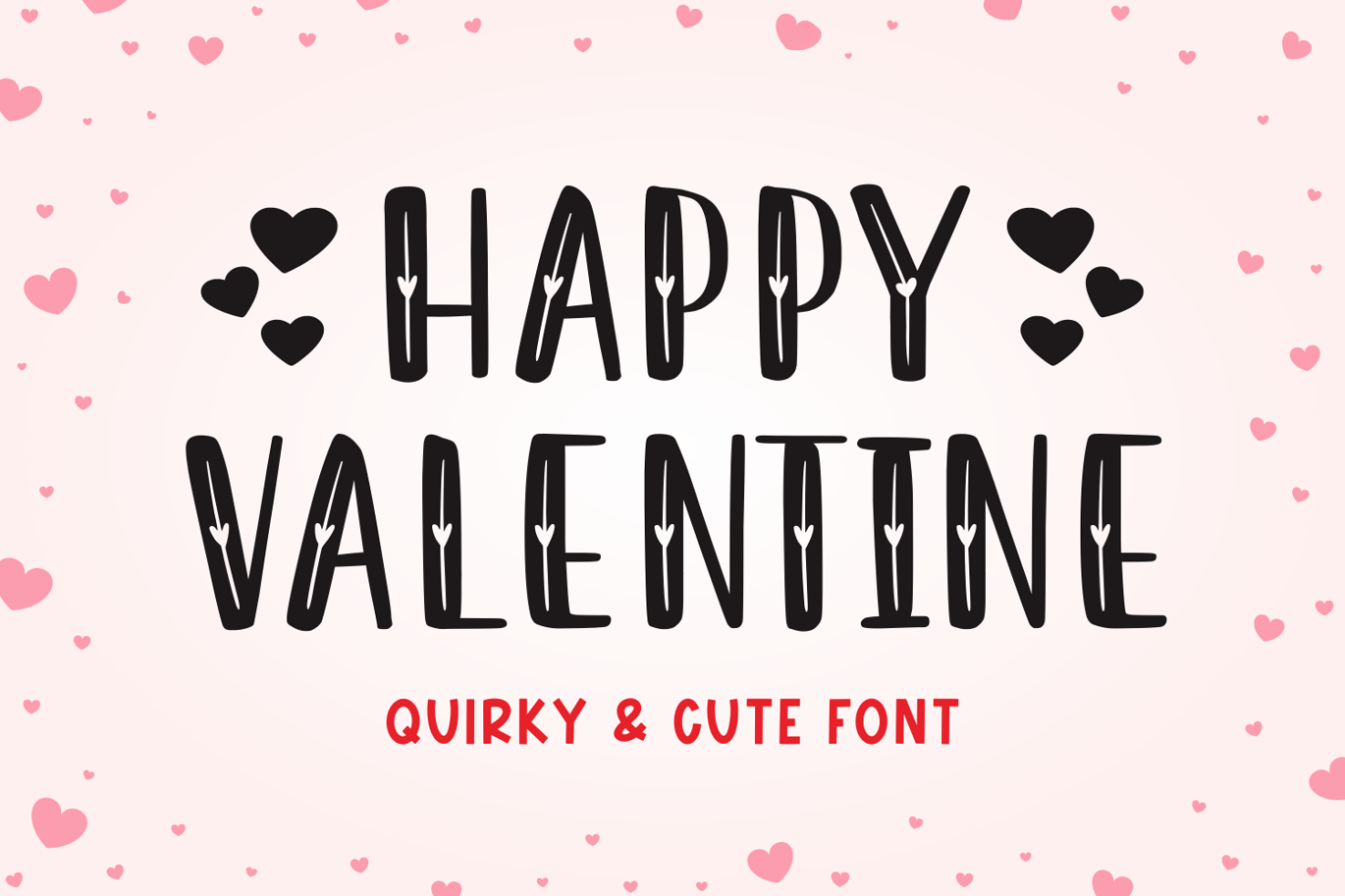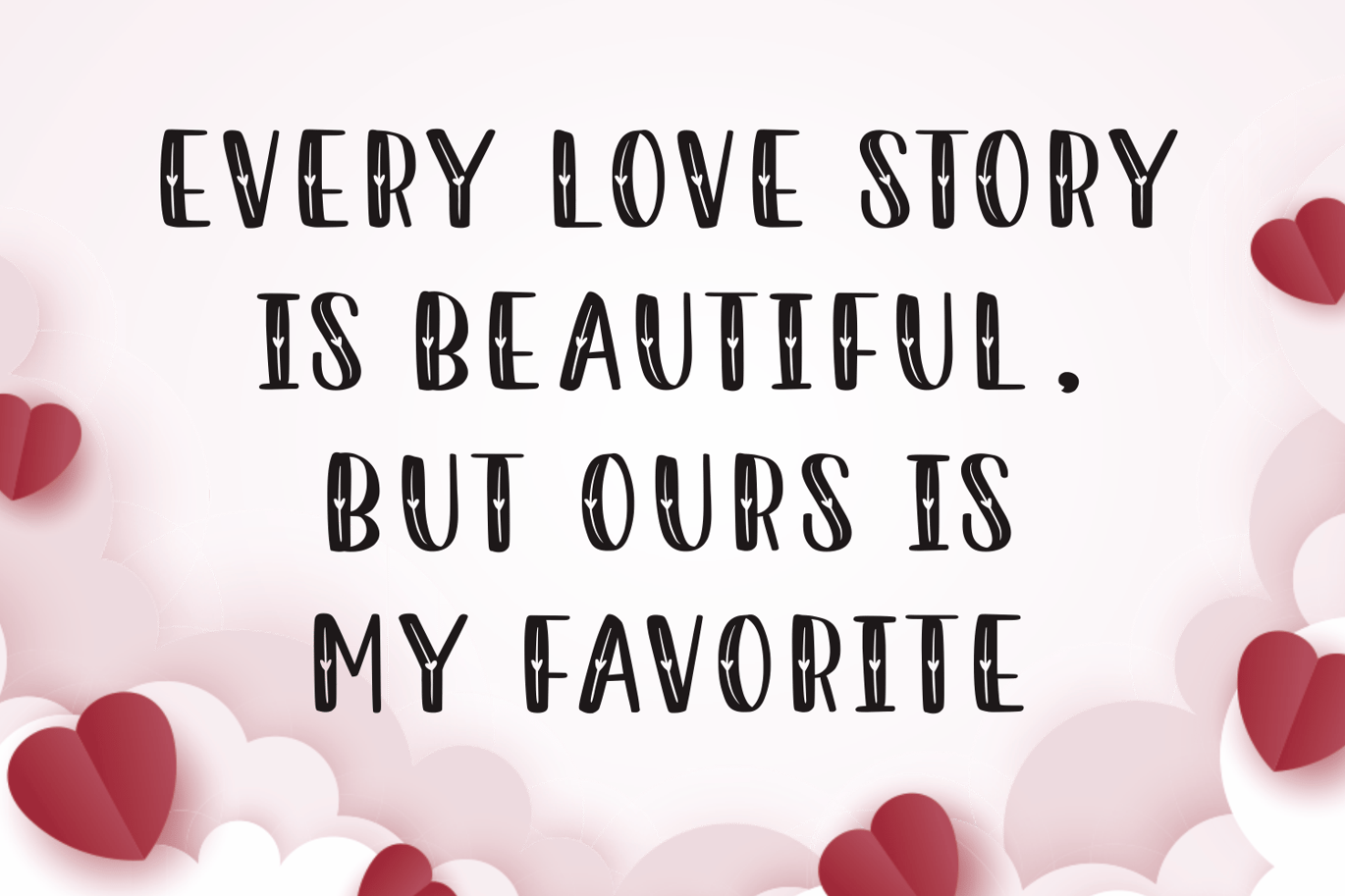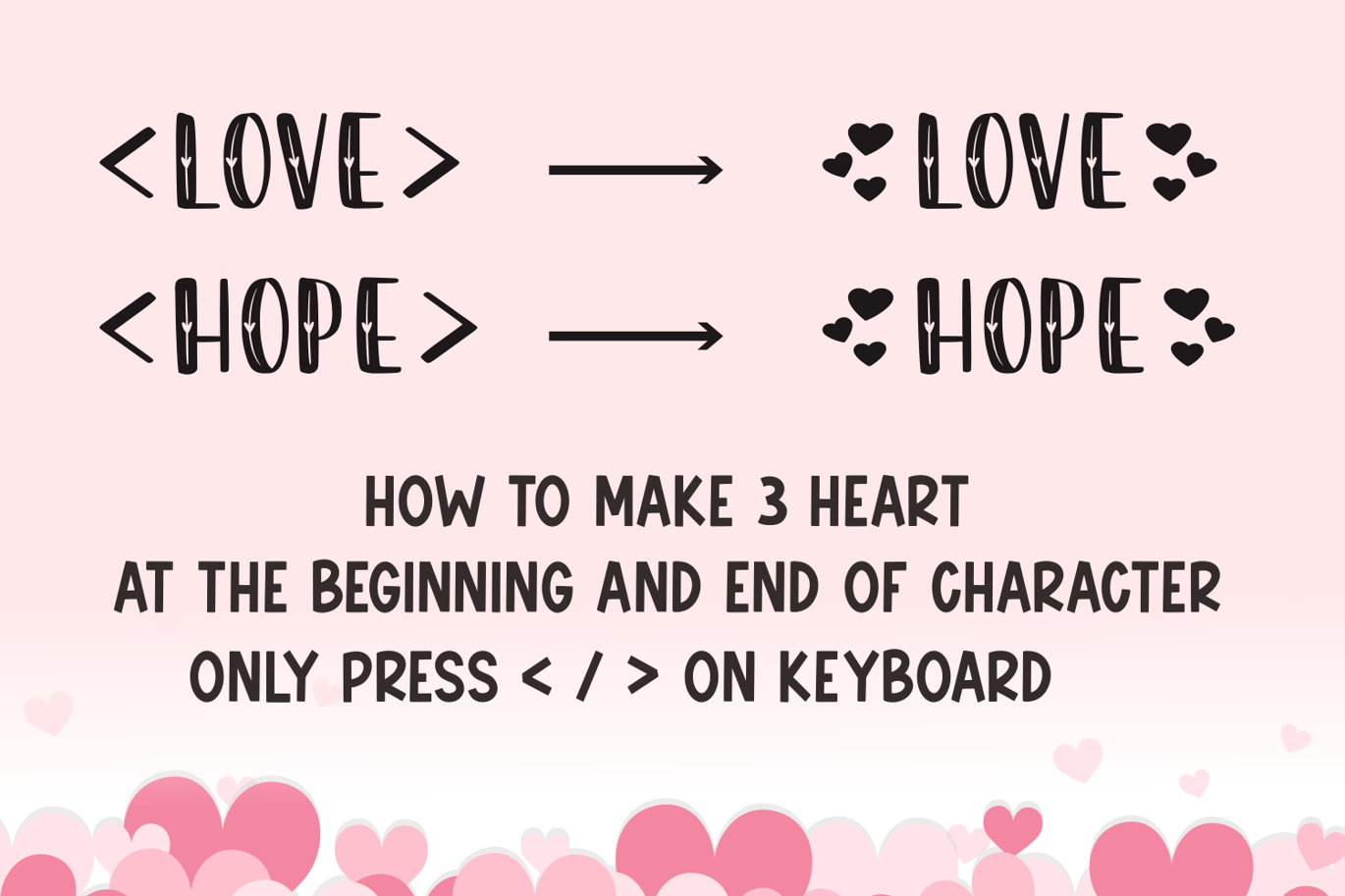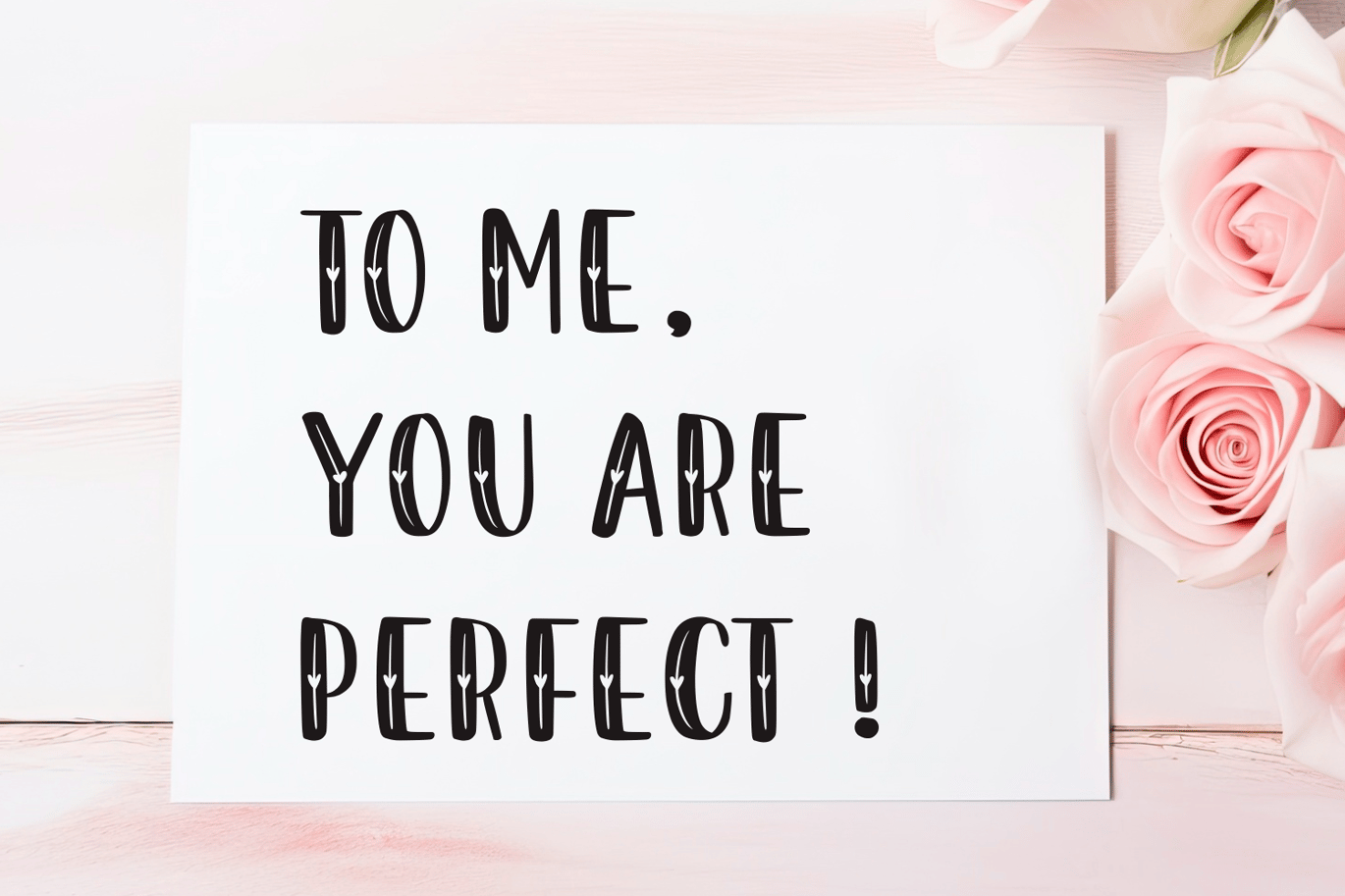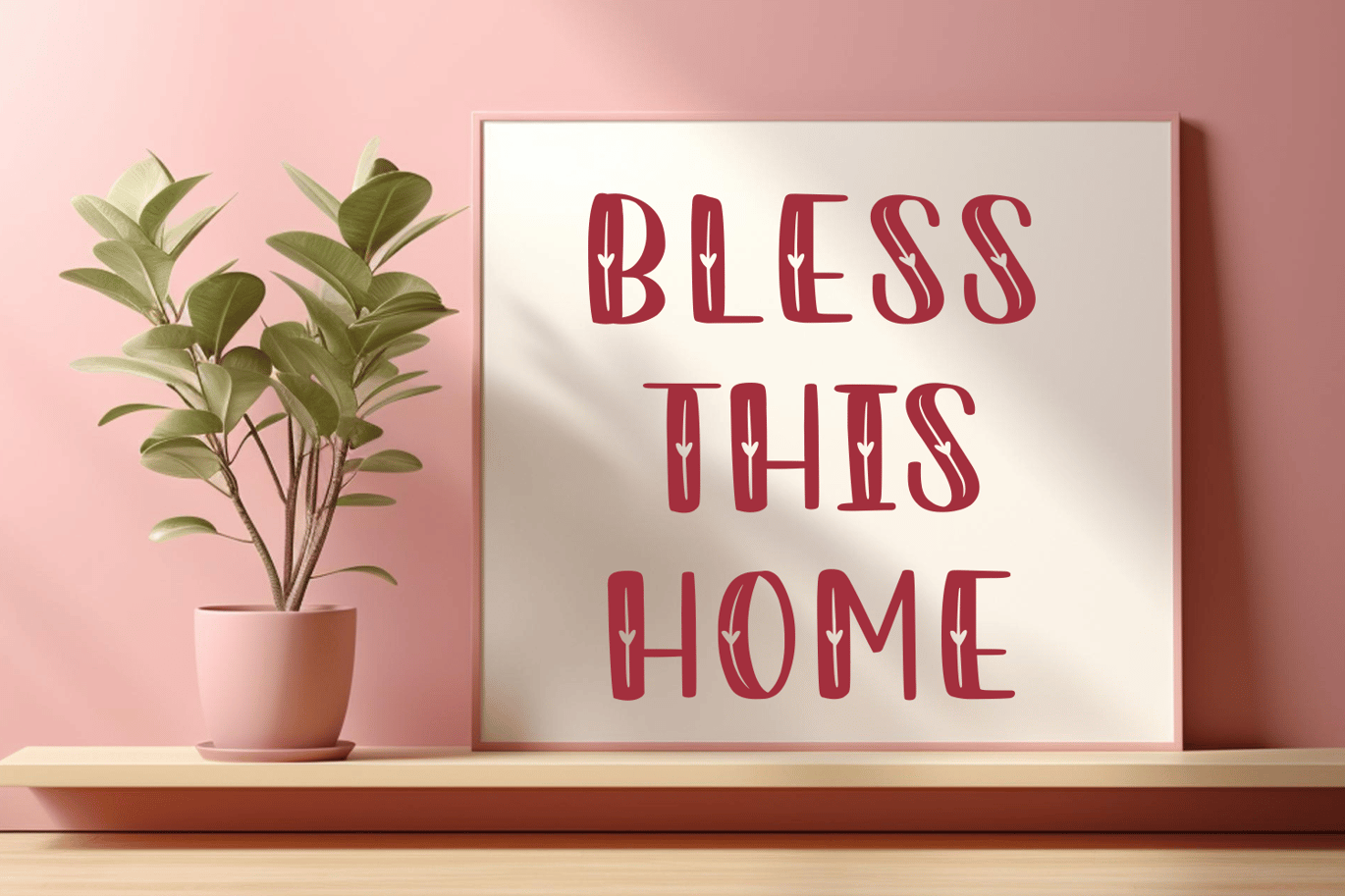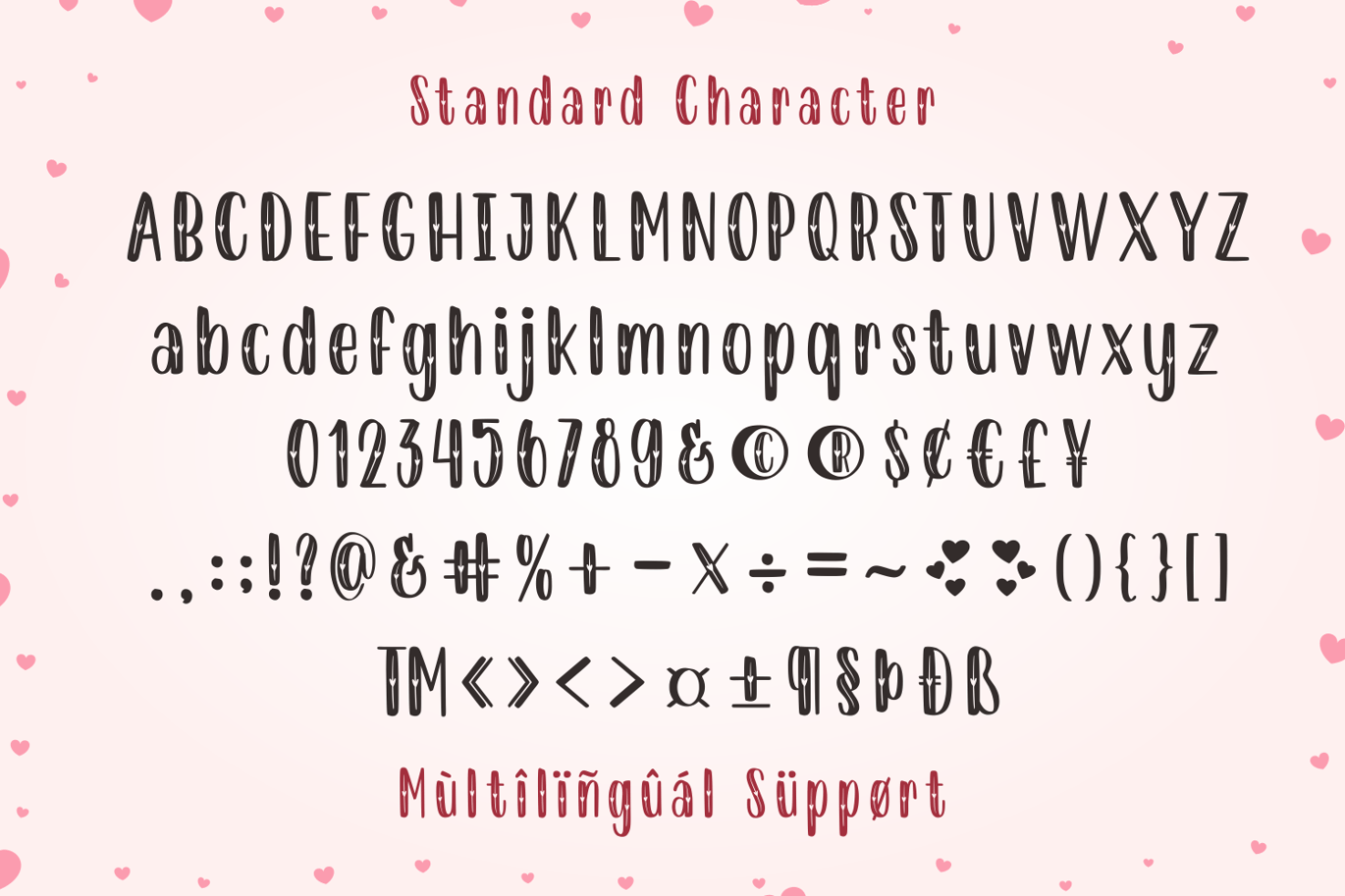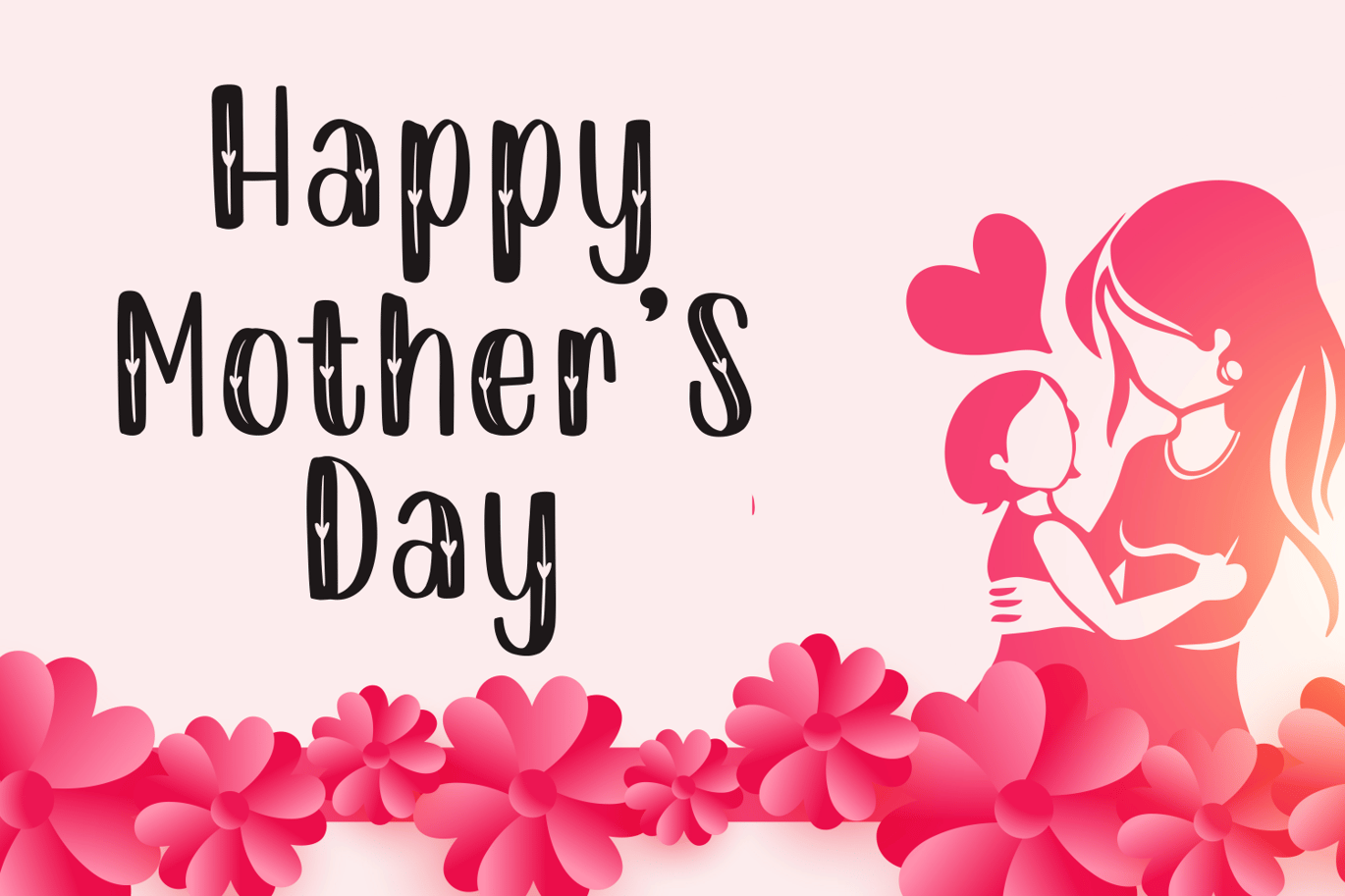
Happy Valentine Font
Introducing the Happy Valentine Font – a charming, display-style font that embodies the essence of love, tenderness, and creativity. Its adorable and cute design makes it perfect for expressing affection on Valentine’s Day, Mother’s Day, or any heartfelt occasion. This delightful font is an ideal choice for crafting greeting cards, decorative elements, crafting lettering projects, and adding a touch of warmth to embroidery work.
Its playful yet elegant strokes bring life to your designs, making them stand out with an endearing appeal. Whether you’re creating handmade cards, decorating spaces, or crafting intricate lettering, the Happy Valentine Font will infuse your projects with an irresistible charm.